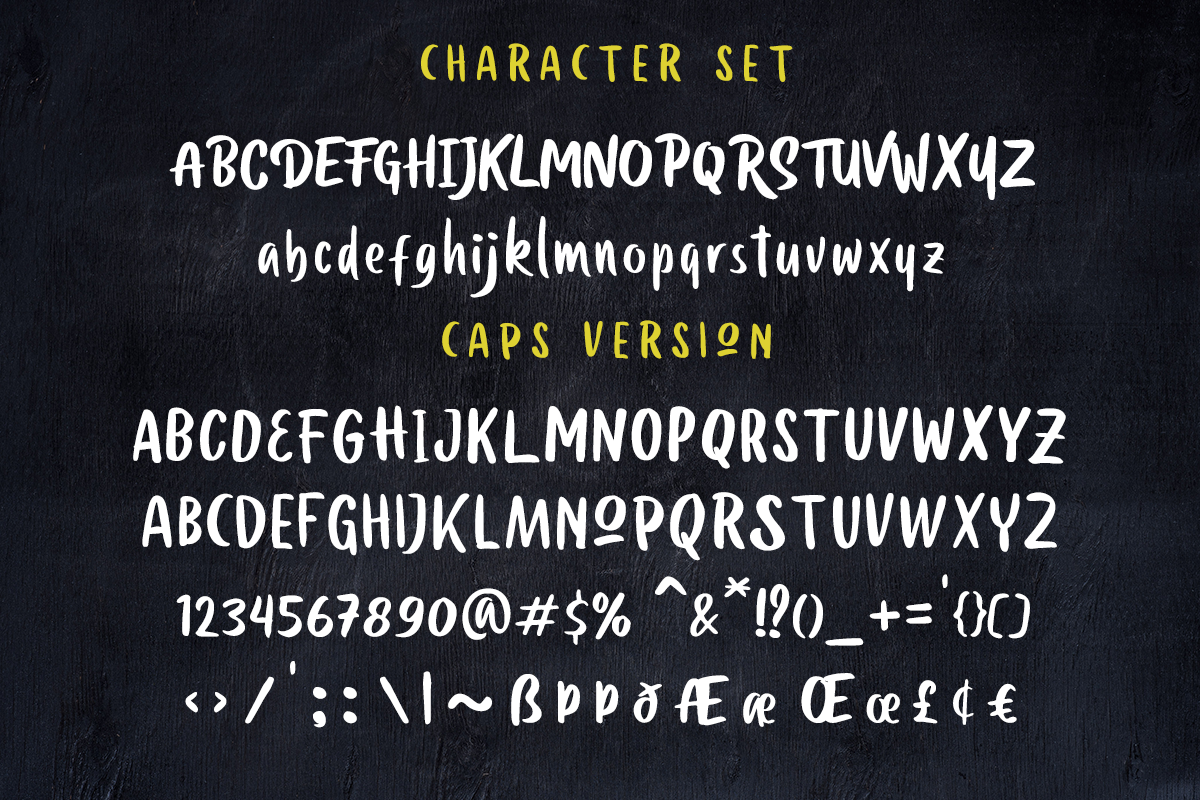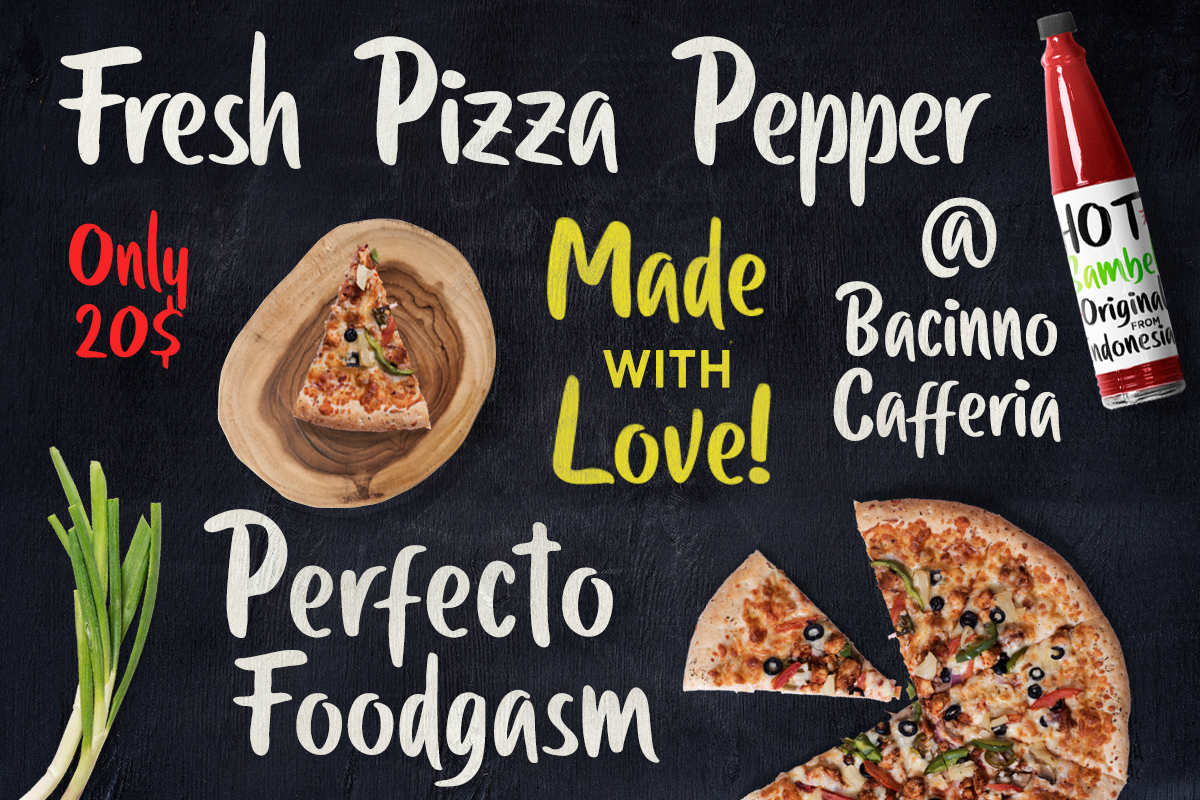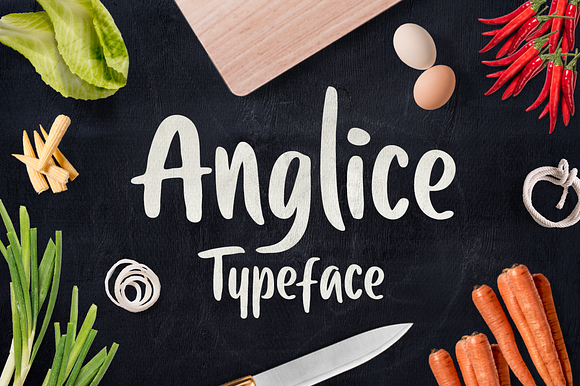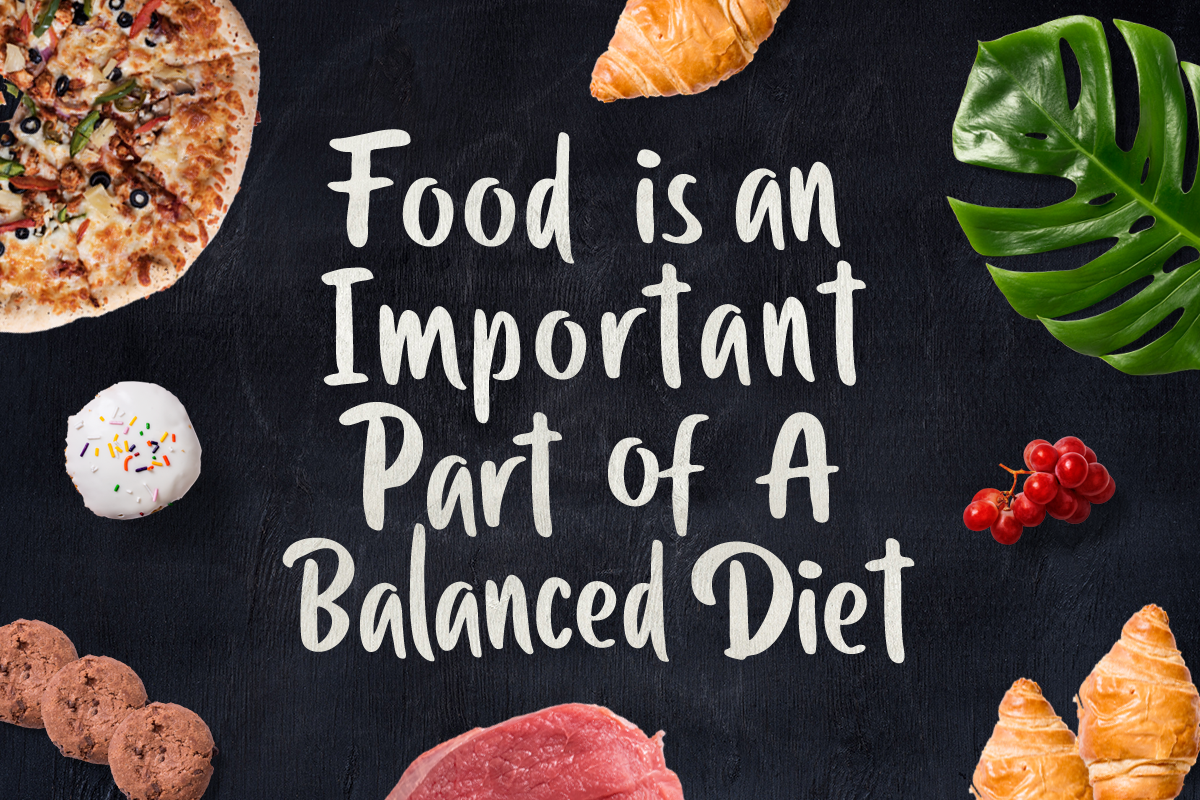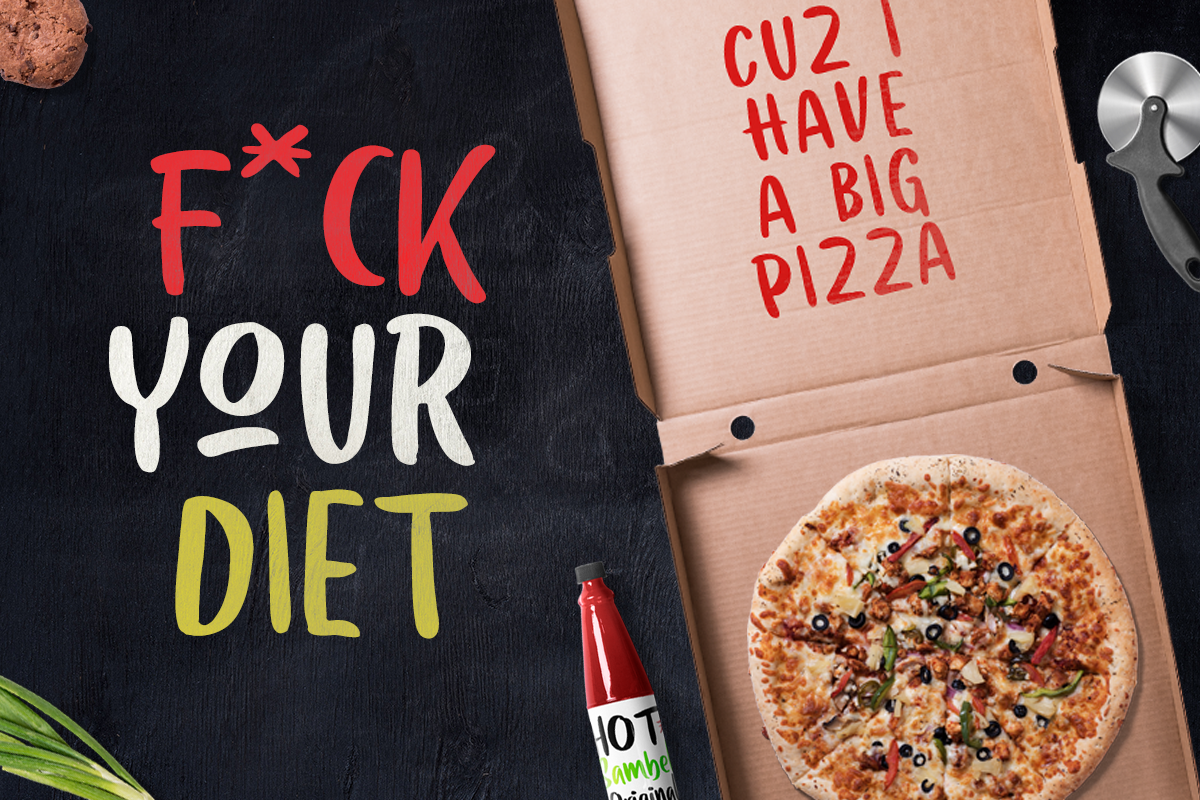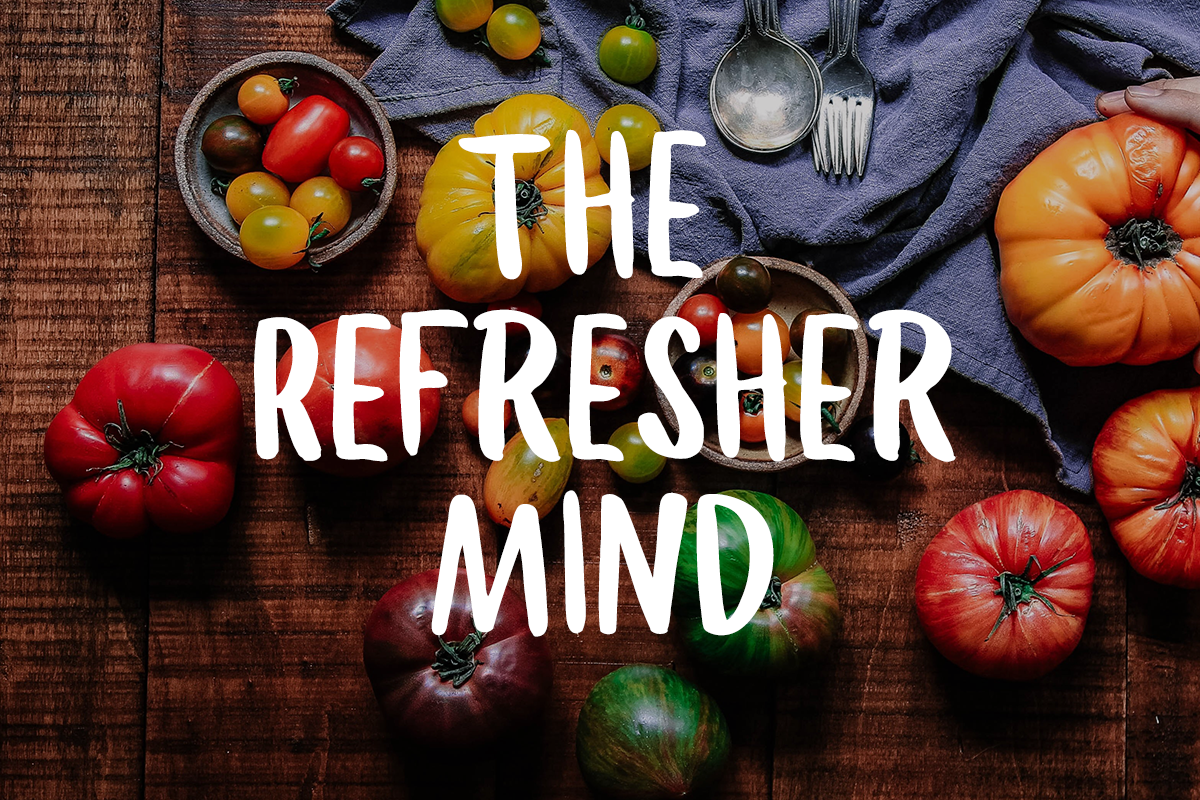
Introducing, our new font, Anglice!
Anglice is a delicious handwritten font that will make your design more natural. You can use this font for making a quotes, menu, and many things. This font also support multi language with full of punctuation!
- This font also support multi language with full of punctuation!
- Anglice Regular